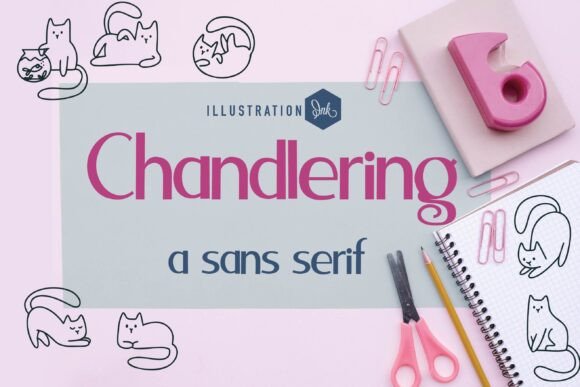
Chandlering Font: A Hand-Crafted Sans Serif for Modern Designs
The Chandlering Font is a unique, hand-crafted sans serif font that has gained popularity for its squatty and modern design. In this article, we’ll explore the characteristics of the Chandlering Font, the concept of hand-crafted fonts, and their uses in various design projects.
What is Chandlering Font?
The Chandlering Font is a typeface that belongs to the sans serif family. Its design is distinct, with a squatty and modern aesthetic that sets it apart from other fonts. The font’s unique characteristics make it an excellent choice for designers looking to add a personal touch to their projects.
As a hand-crafted font, Chandlering is designed to mimic the look of handwritten text. The font’s irregularities and quirks give it a human touch, making it perfect for designs that require a personal and approachable feel.
What are Hand-Crafted Fonts?
Hand-crafted fonts, also known as handwritten fonts, are typefaces that are designed to look like they were written by hand. These fonts are often used for invitations, greeting cards, and other items where a personal touch is desired.
Handwritten fonts can be either formal or informal, depending on the design. Some hand-crafted fonts are elegant and cursive, while others are more casual and playful. The versatility of hand-crafted fonts makes them suitable for a wide range of design projects.
Characteristics of Hand-Crafted Fonts
Hand-crafted fonts have several distinct characteristics that set them apart from other typefaces. Some of the key features of hand-crafted fonts include:
- Irregularities: Hand-crafted fonts often have irregularities in letter spacing, size, and shape. These irregularities give the font a human touch and make it look like it was written by hand.
- Unique letterforms: Hand-crafted fonts often have unique letterforms that are designed to mimic the way people write. The letters may have varying widths, and the strokes may be uneven.
- Emotional connection: Hand-crafted fonts can create an emotional connection with the reader. The personal and human touch of the font can make the text feel more relatable and engaging.
Uses of Hand-Crafted Fonts
Hand-crafted fonts are versatile and can be used for a variety of design projects. Some of the most common uses of hand-crafted fonts include:
- Invitations: Hand-crafted fonts are often used for invitations, such as wedding invitations, birthday invitations, and graduation announcements.
- Greeting cards: Hand-crafted fonts are popular for greeting cards, including birthday cards, holiday cards, and get-well cards.
- Branding: Hand-crafted fonts can be used for branding, especially for companies that want to create a personal and approachable image.
- Packaging: Hand-crafted fonts can be used for packaging, such as labels, tags, and product descriptions.
Benefits of Using Hand-Crafted Fonts
Using hand-crafted fonts can have several benefits for designers and businesses. Some of the advantages of hand-crafted fonts include:
- Unique look: Hand-crafted fonts offer a unique and distinctive look that can set a design apart from others.
- Emotional connection: Hand-crafted fonts can create an emotional connection with the reader, making the text feel more relatable and engaging.
- Flexibility: Hand-crafted fonts can be used for a wide range of design projects, from formal to informal.
Tips for Using Chandlering Font and Other Hand-Crafted Fonts
Here are some tips for using Chandlering Font and other hand-crafted fonts:
- Use for headlines: Hand-crafted fonts are often best used for headlines or titles, where the unique and playful design can make a big impact.
- Pair with serif fonts: Hand-crafted fonts can be paired with serif fonts to create a nice contrast and add visual interest to the design.
- Consider legibility: When using hand-crafted fonts, make sure to consider legibility. Choose a font that is easy to read, even at small sizes.
The Chandlering Font is a unique and modern hand-crafted sans serif font that can add a personal touch to design projects. Hand-crafted fonts, like Chandlering, offer a range of benefits, including a unique look, emotional connection, and flexibility. By understanding the characteristics and uses of hand-crafted fonts, designers can create engaging and effective designs that stand out from the crowd.